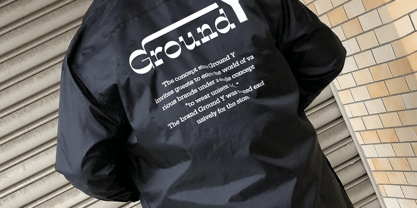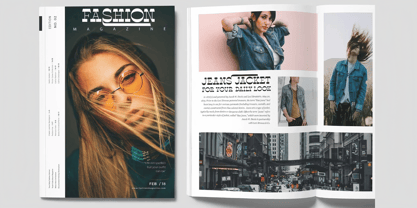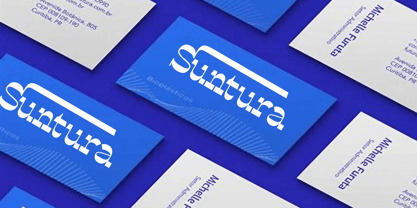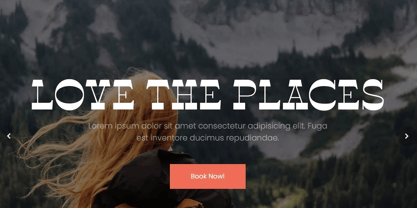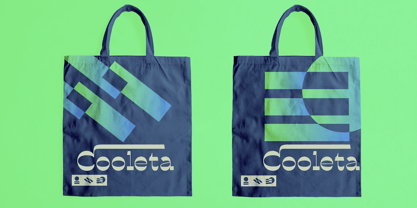
Qetsia
von Aqeela Studio
Die Schriftfamilie Qetsia wurde von Muhammad Nasir entworfen und von Aqeela Studio veröffentlicht. Qetsia enthält 1 Stile.
Qetsia is a striking retro display font that blends nostalgic charm with modern versatility. Its bold curves and intricate details capture the essence of vintage typography, making it perfect for posters, logos, branding, and more. With a unique personality, Qetsia adds a touch of timeless elegance to any design project.